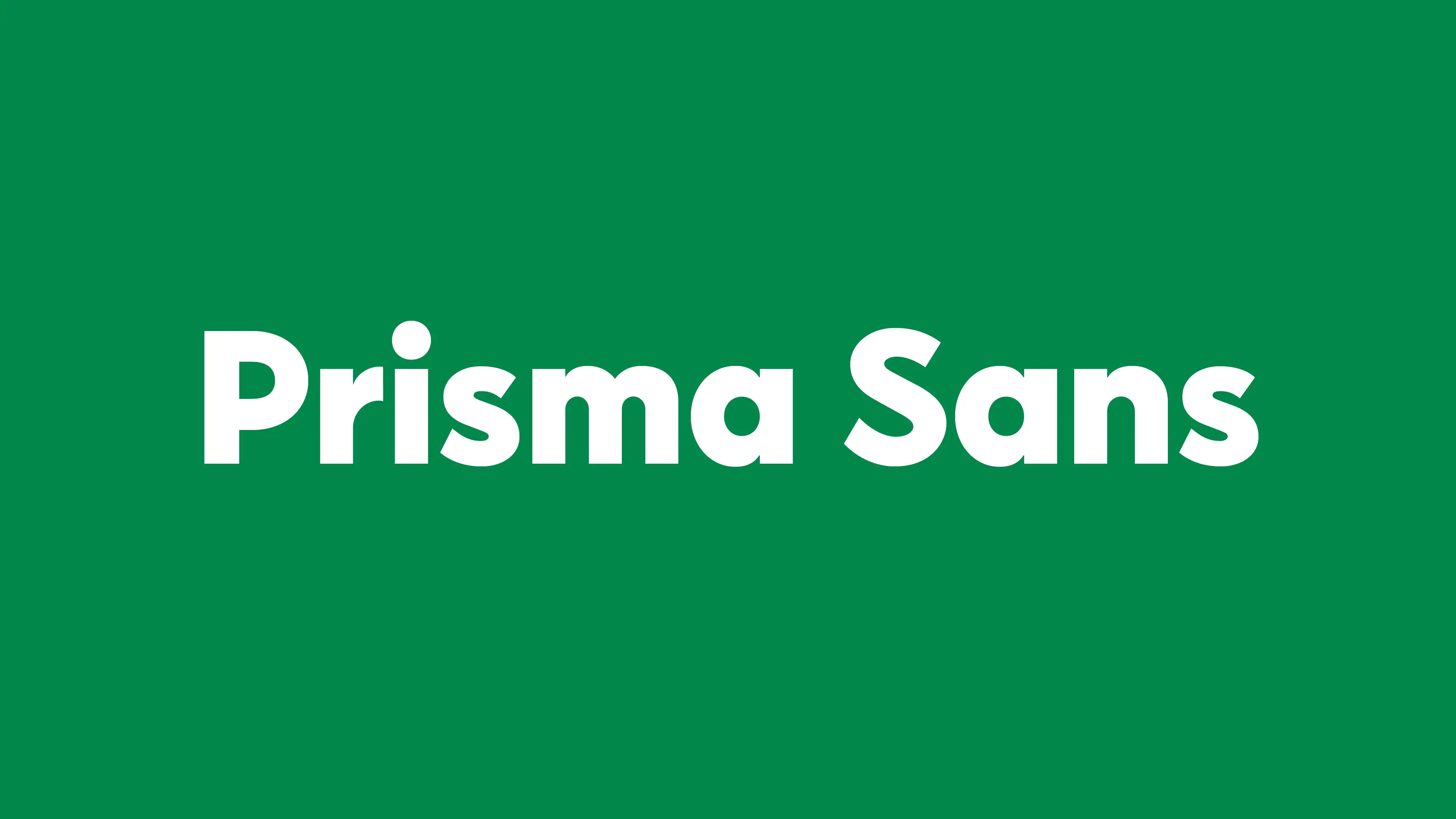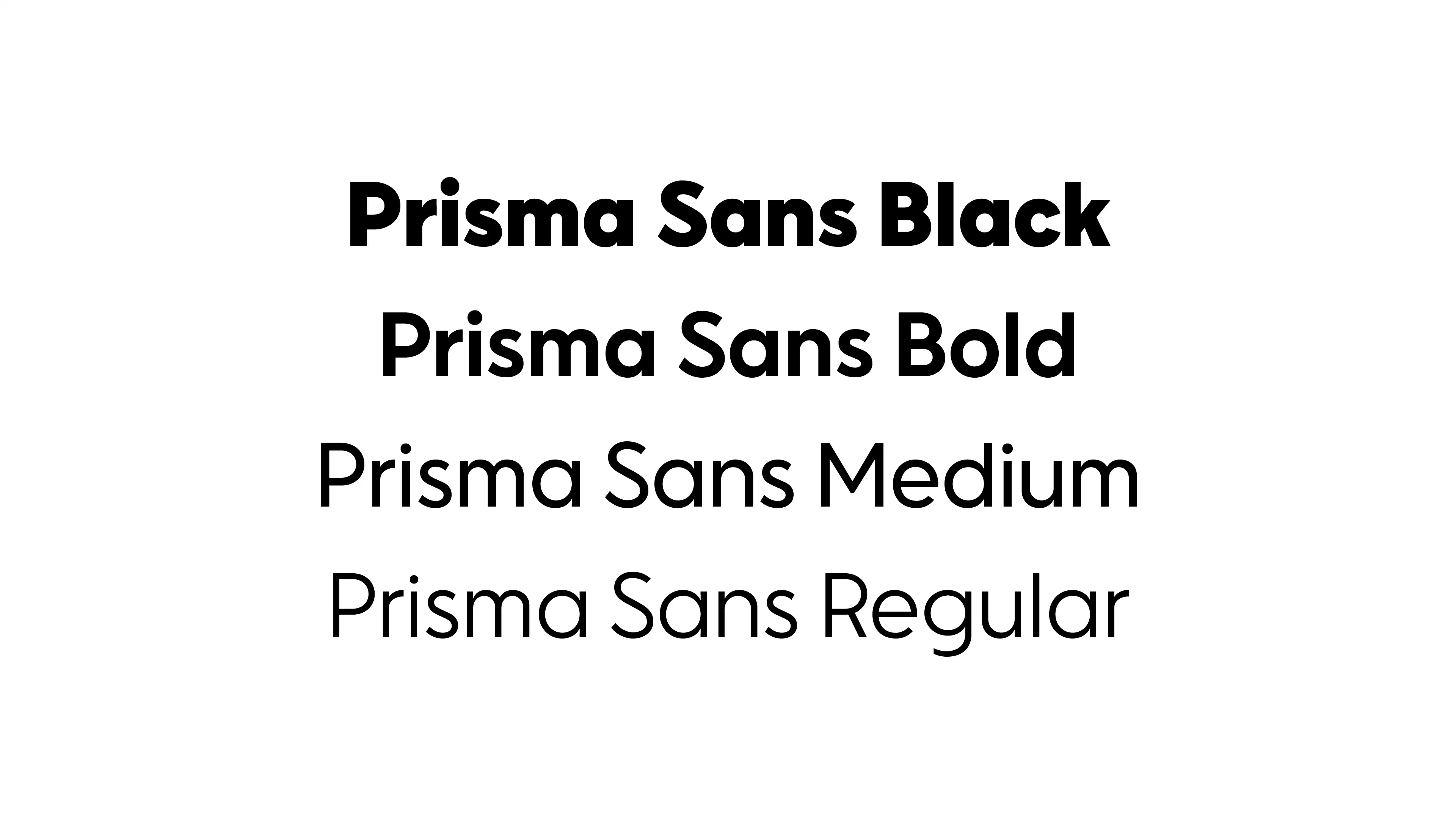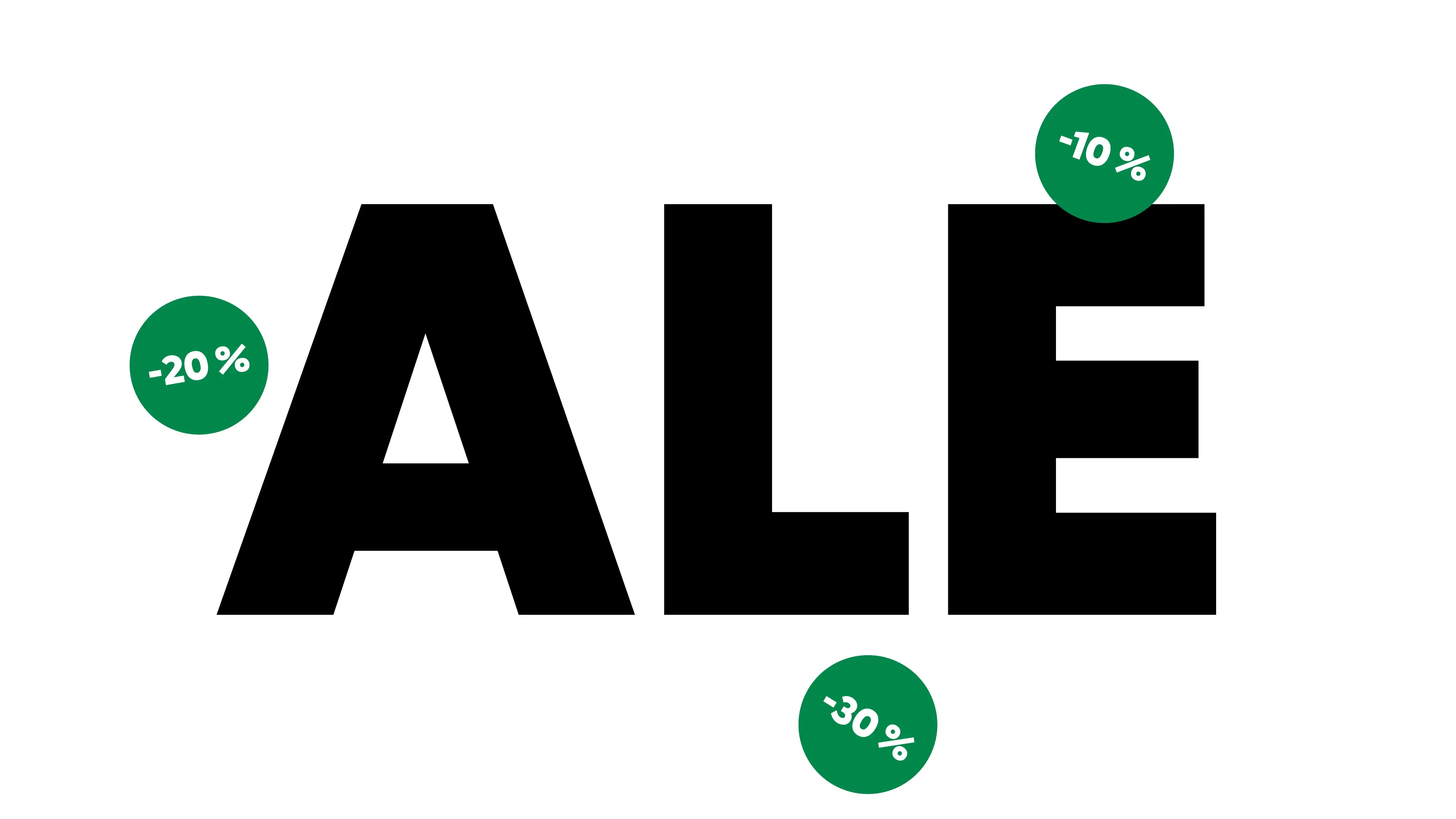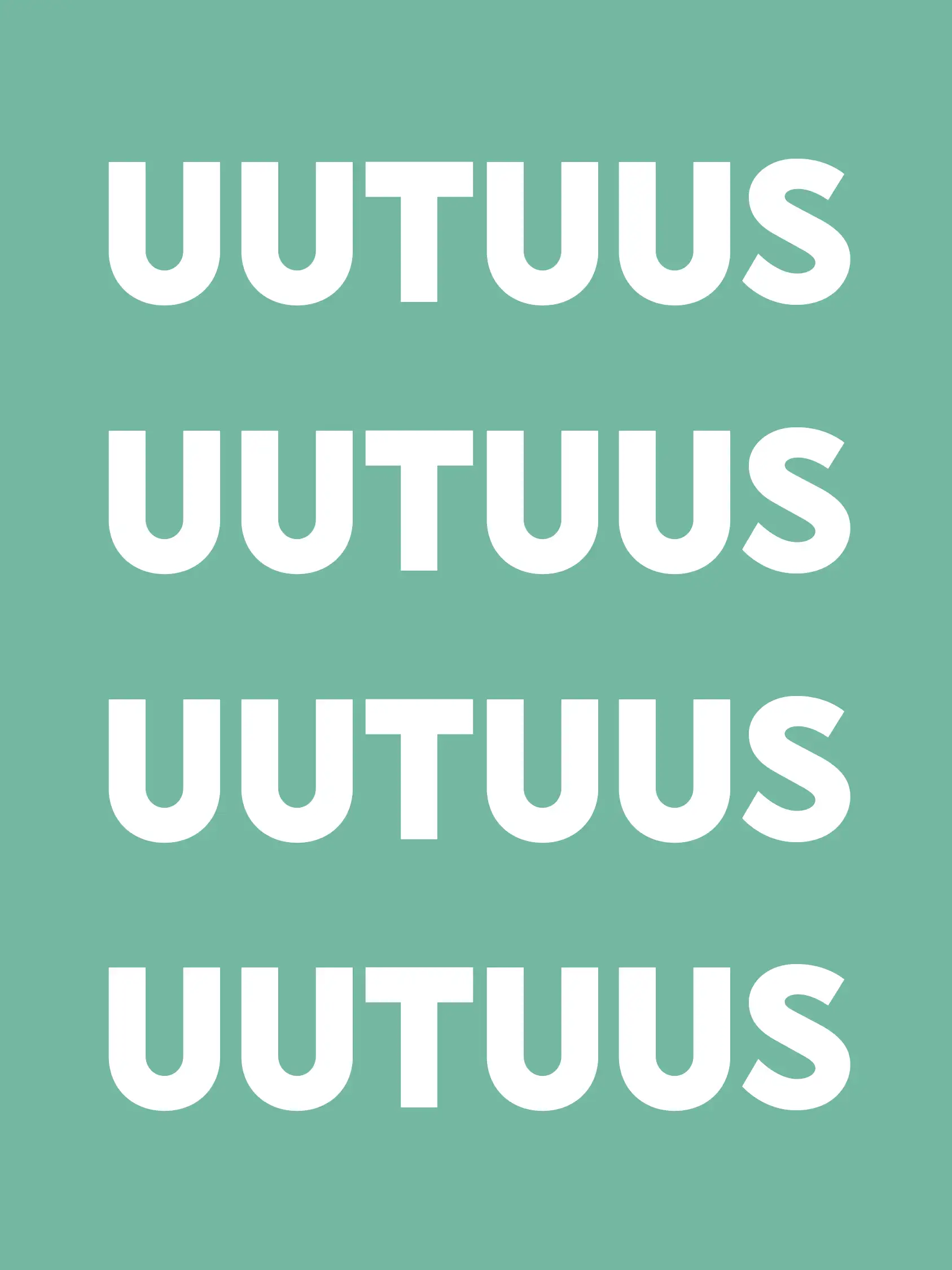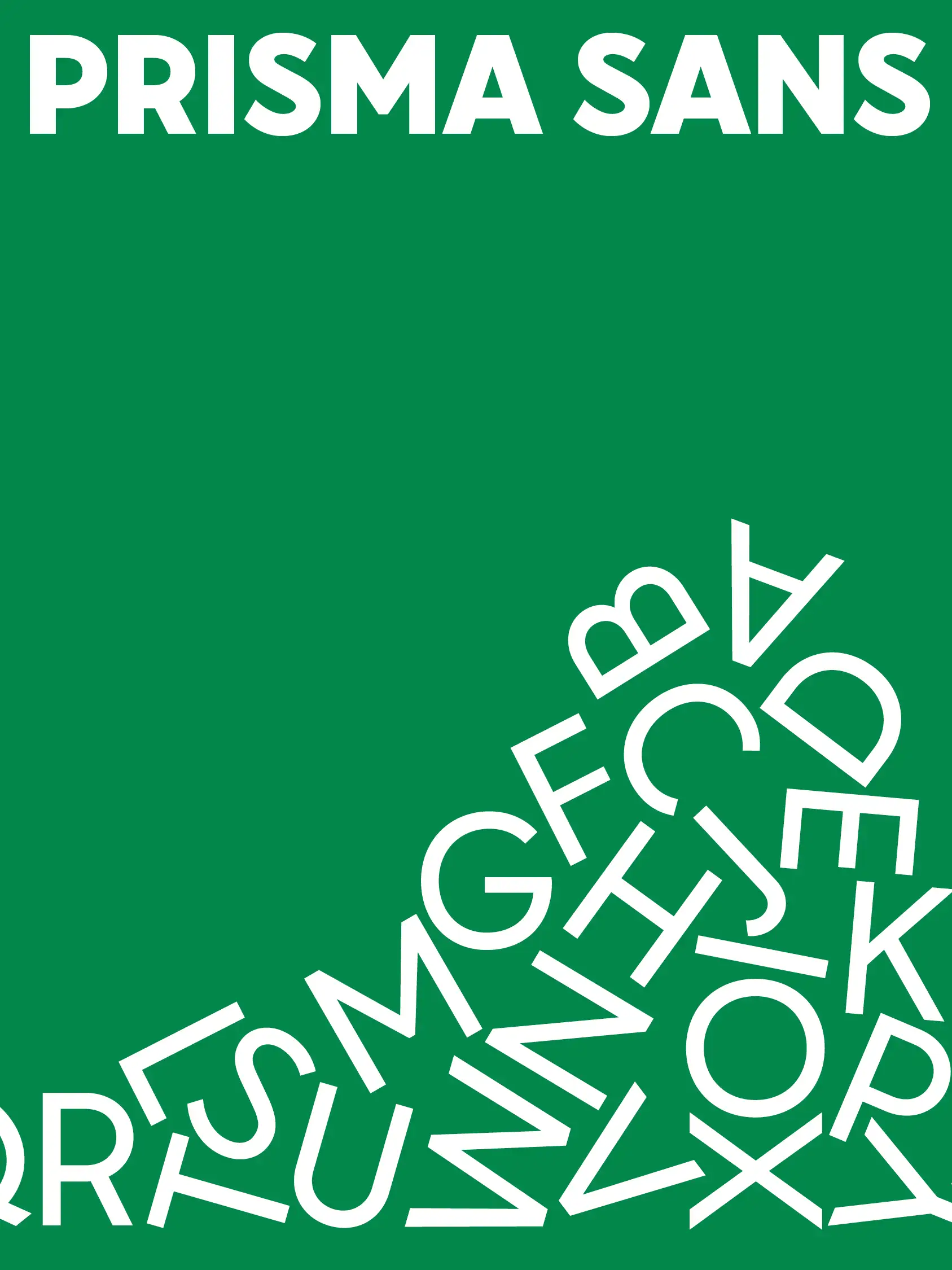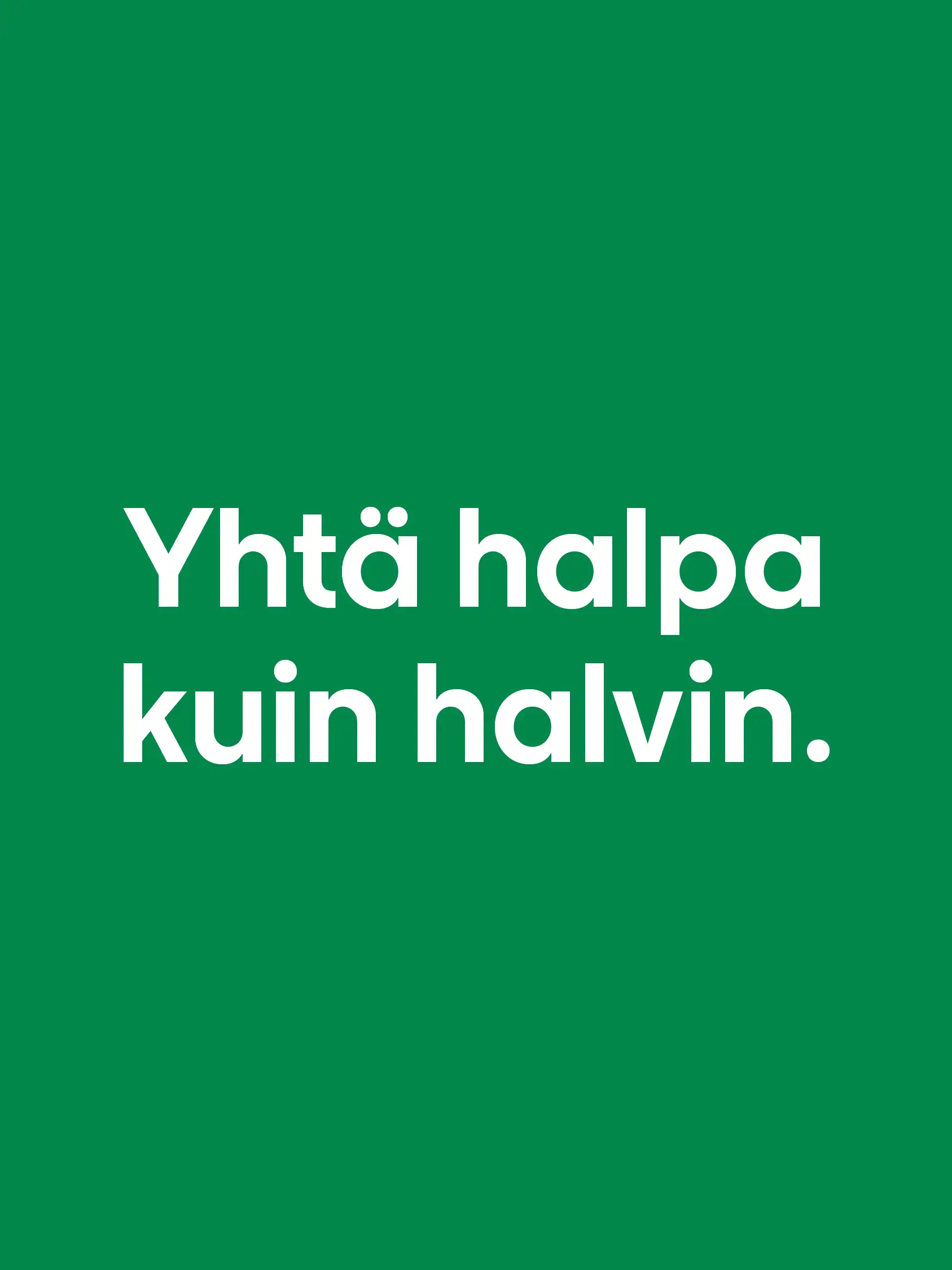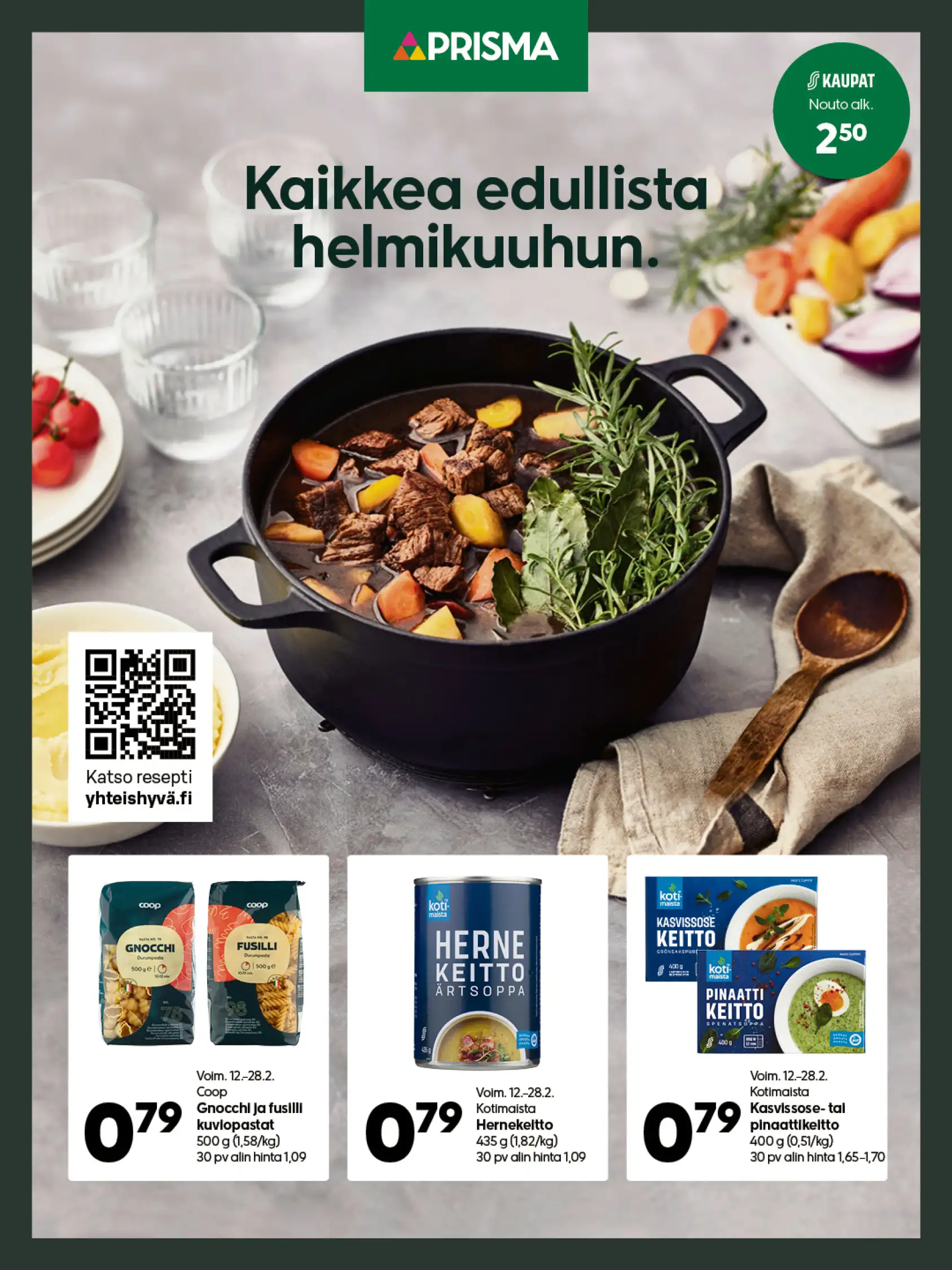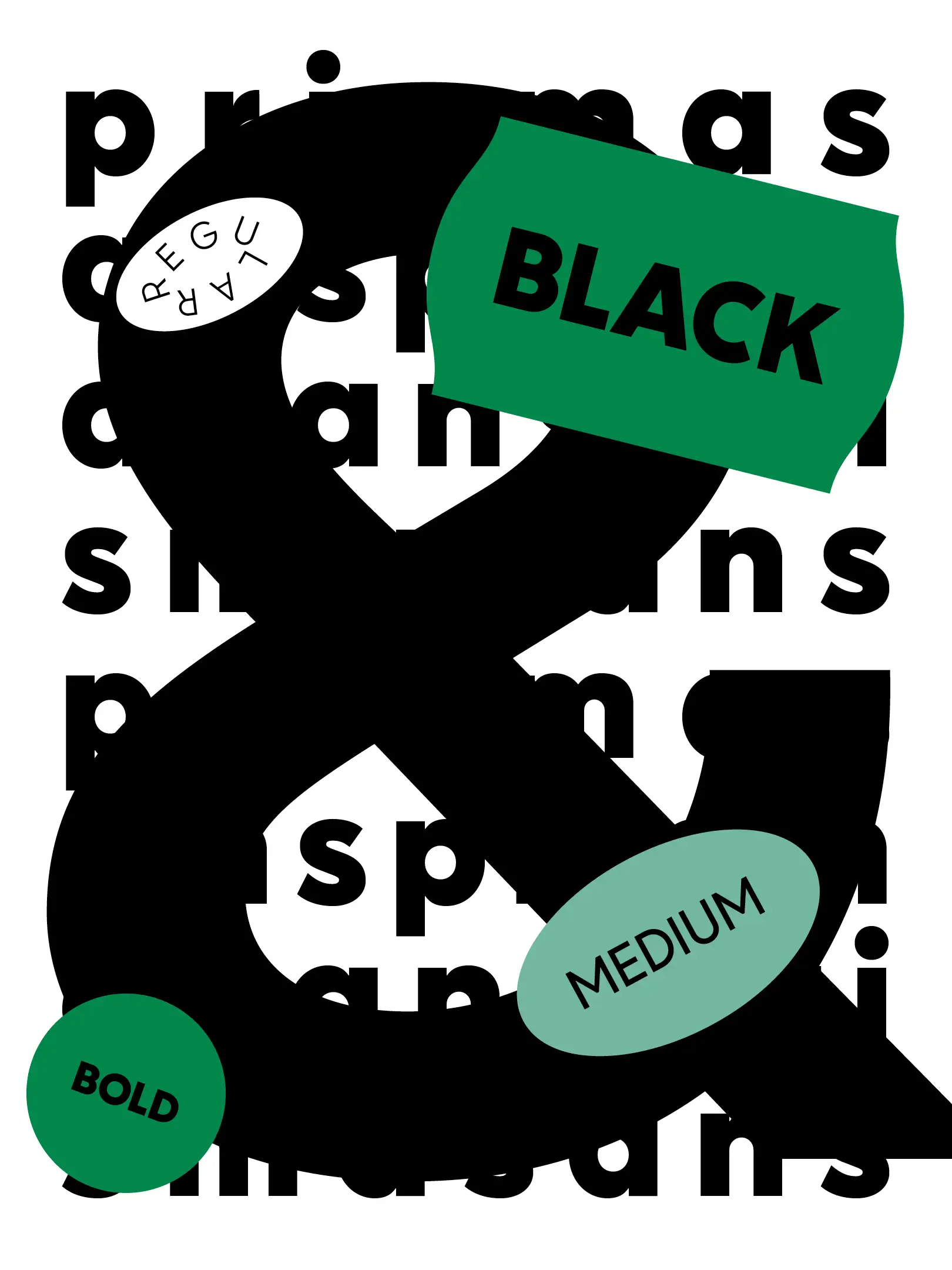
Prisma is a well-known hypermarket chain in Finland, with 77 locations and a thriving online store. As the country’s second-largest retail chain by revenue, it’s a big name in Finnish commerce. The
Creative Agency Aivan approached us to design a custom font. The goal was clear—keep the familiar look while giving the font a fresh, refined touch.